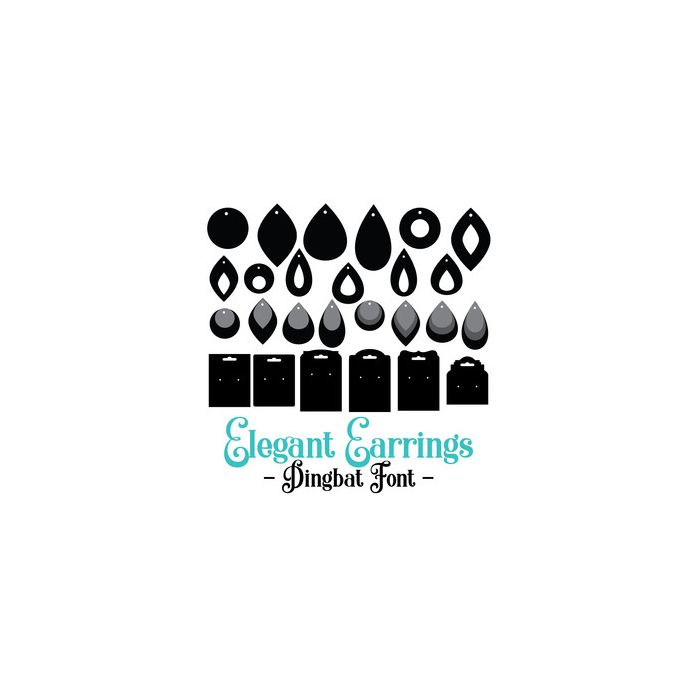
Elegant Earrings Dingbat Font. Contains 32 individual earring elements that can be used along or layered and 6 earrings backer cards with euroslot at the top. Base shapes are allocated to upper and lower case with layering pieces on the glyphs panel, All can be accessed via glyphs.